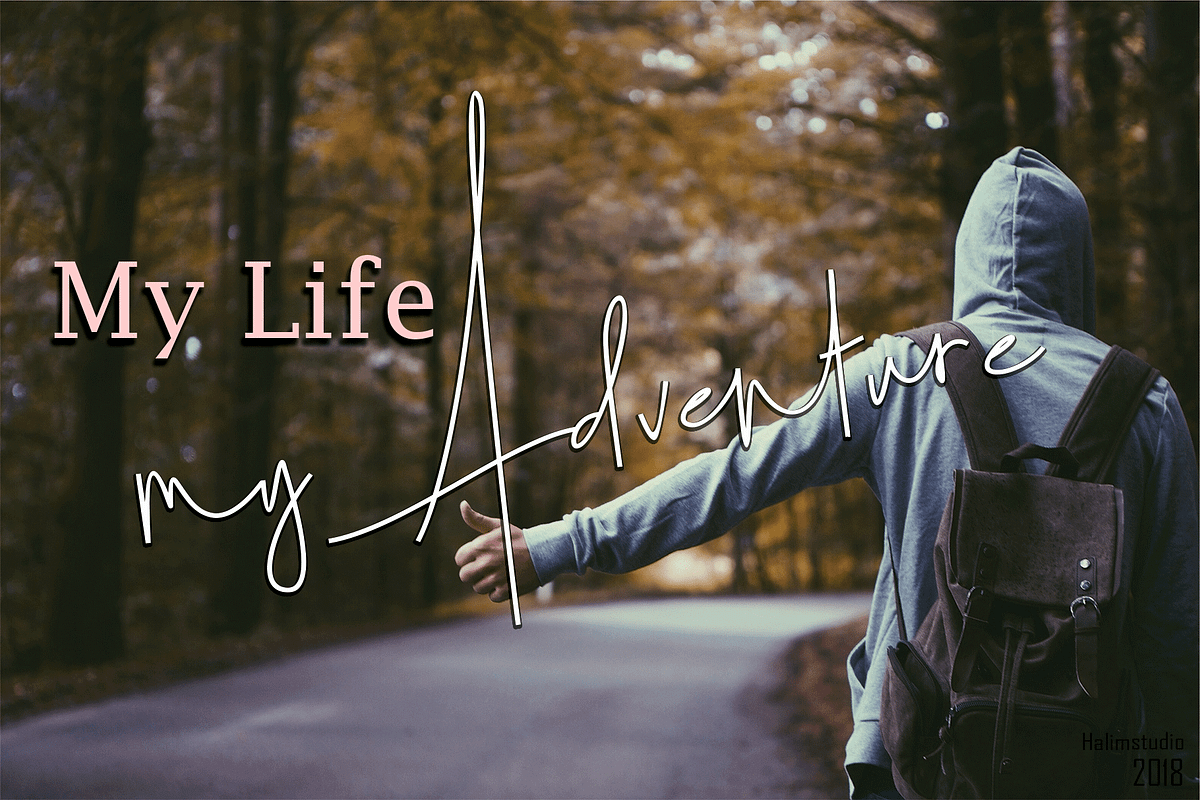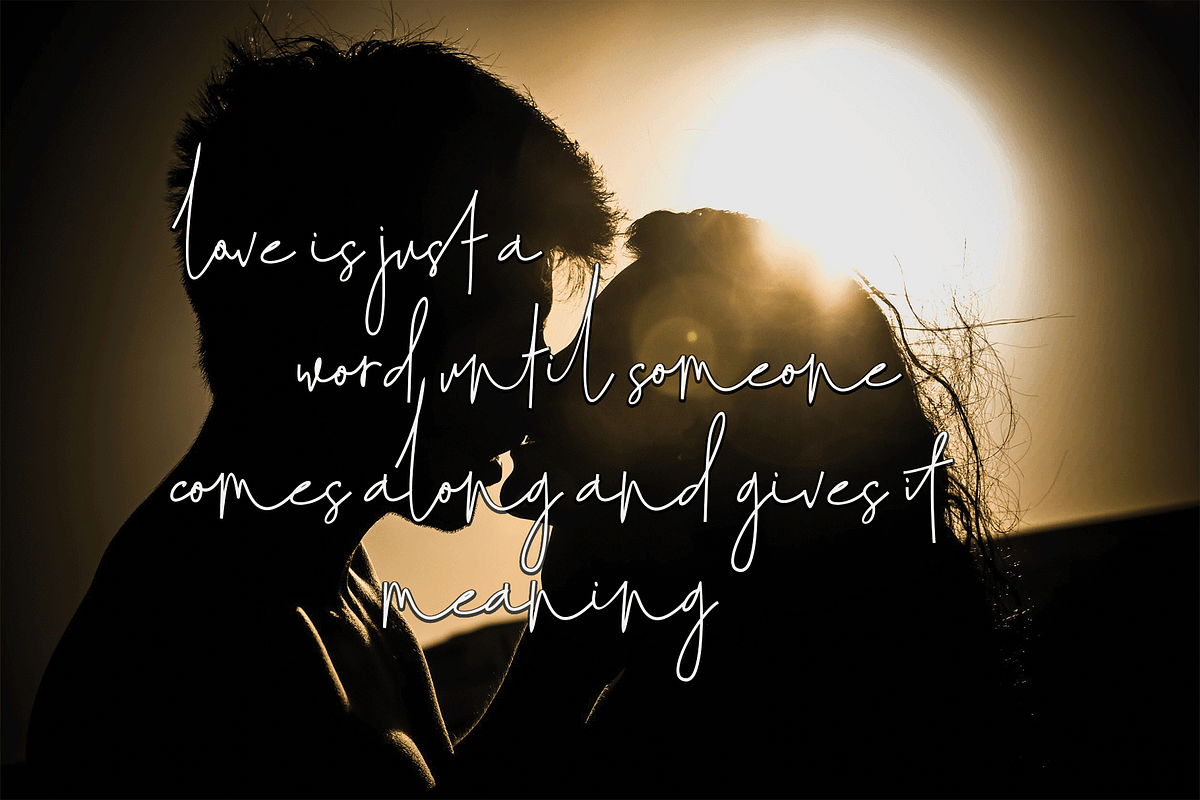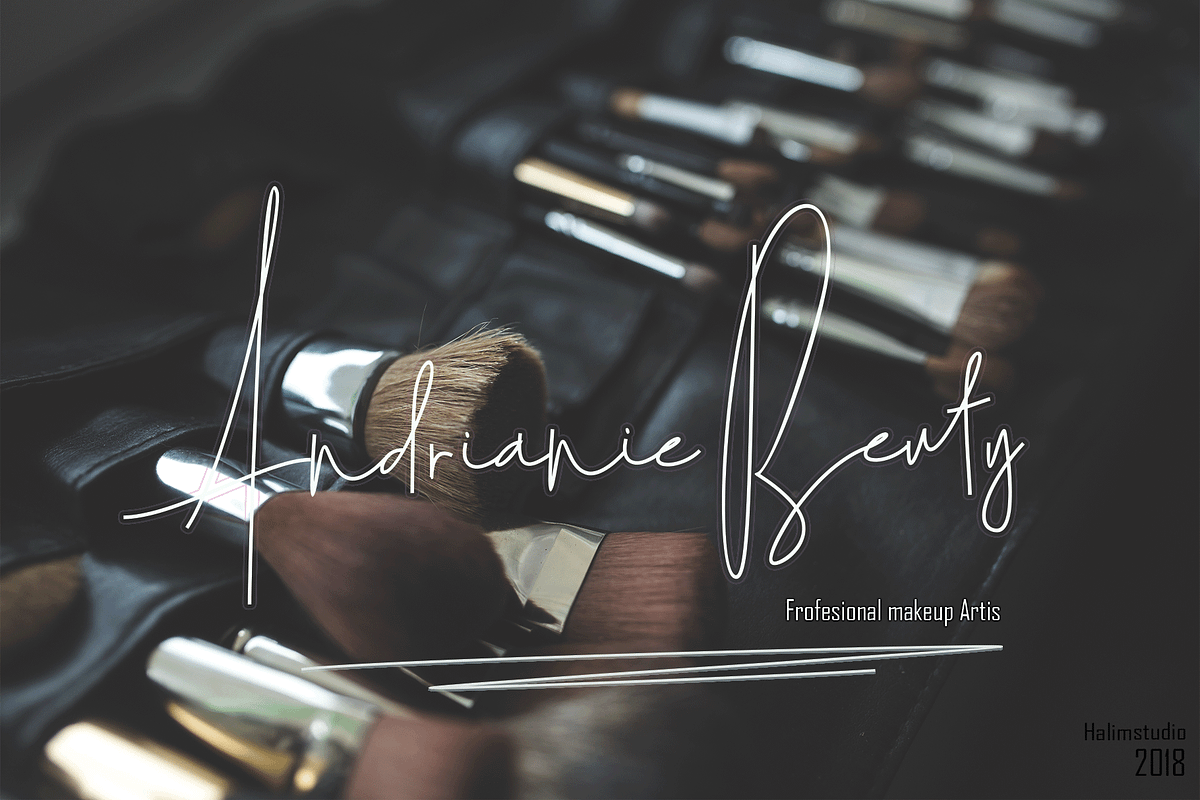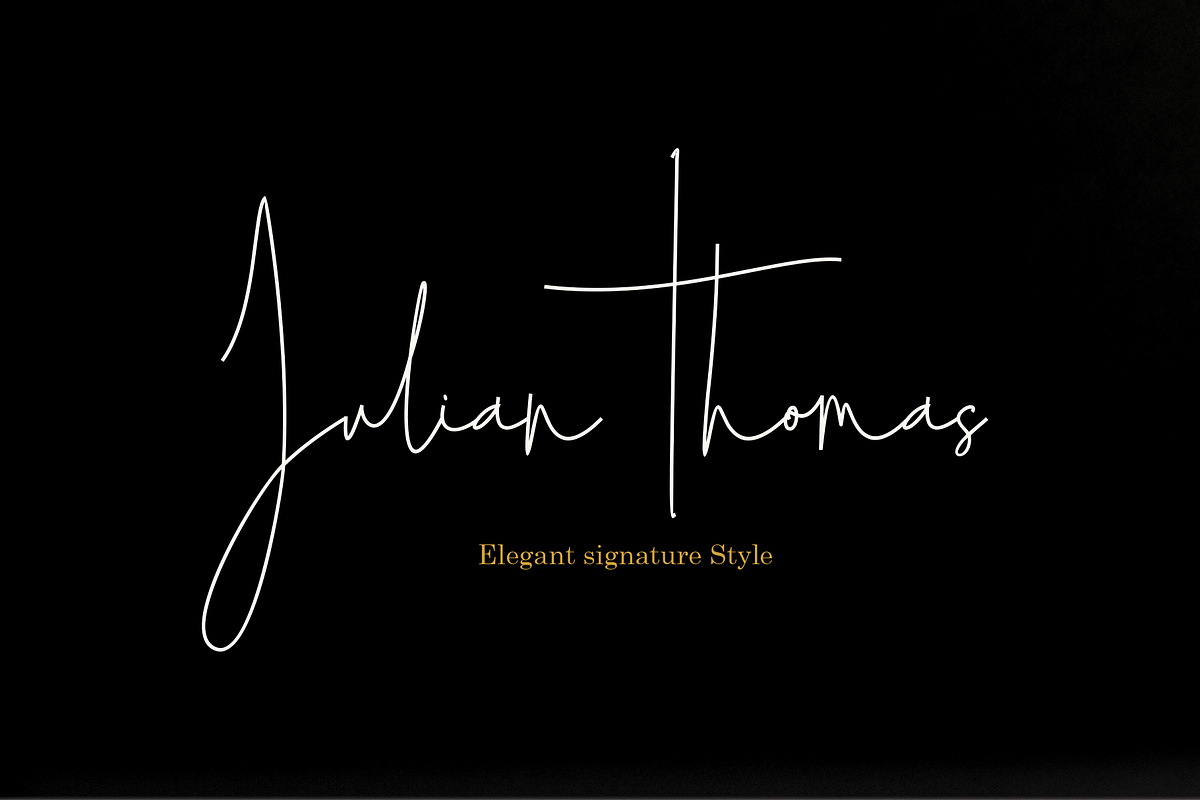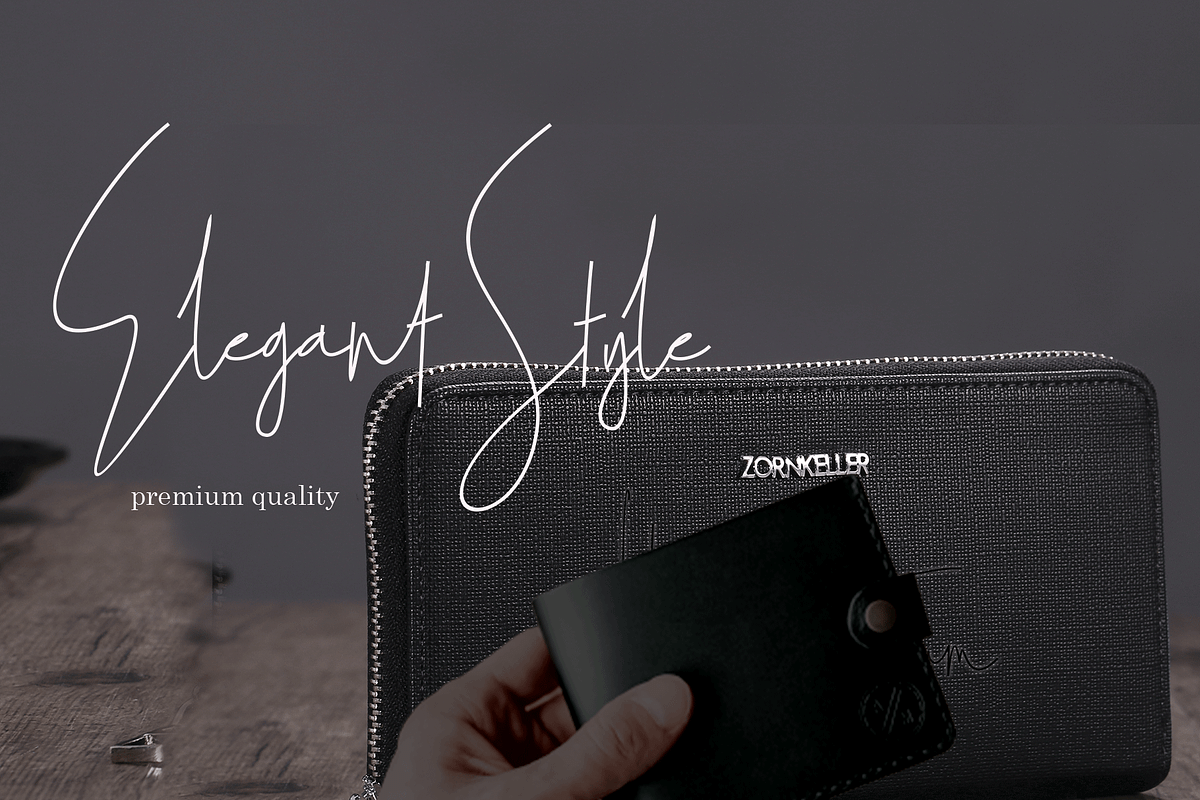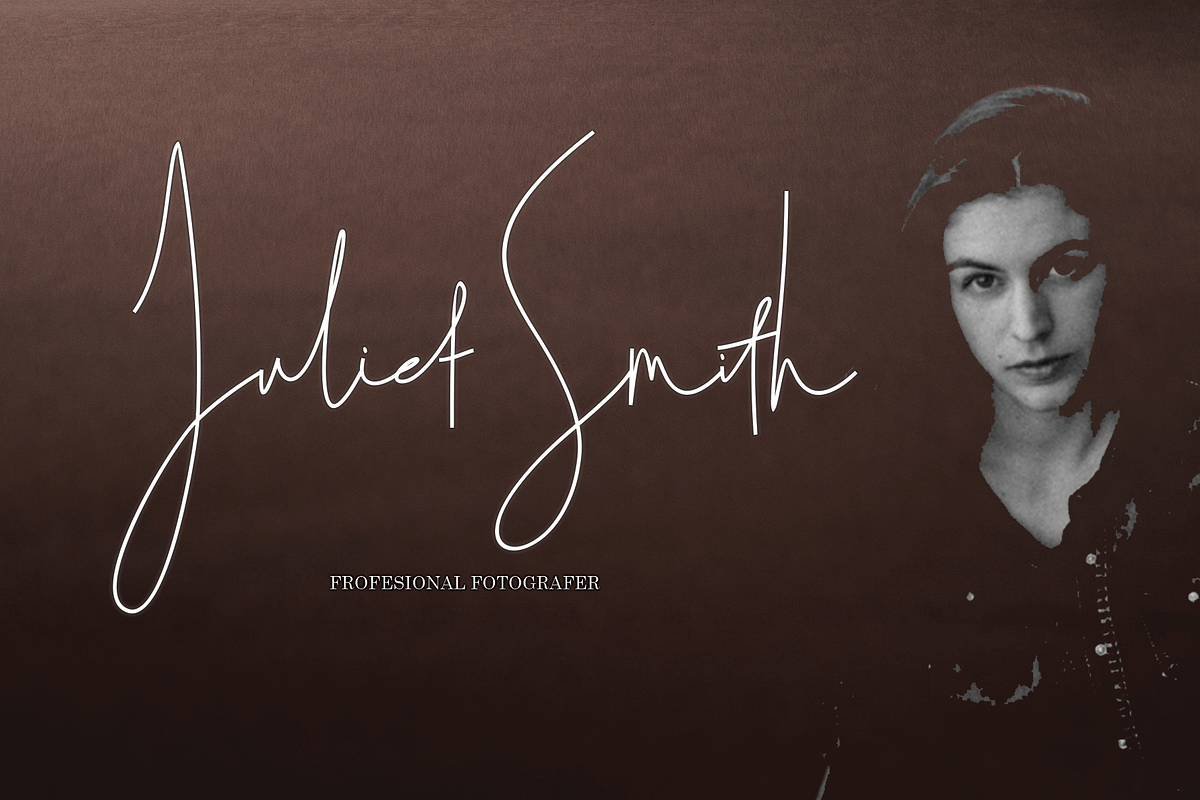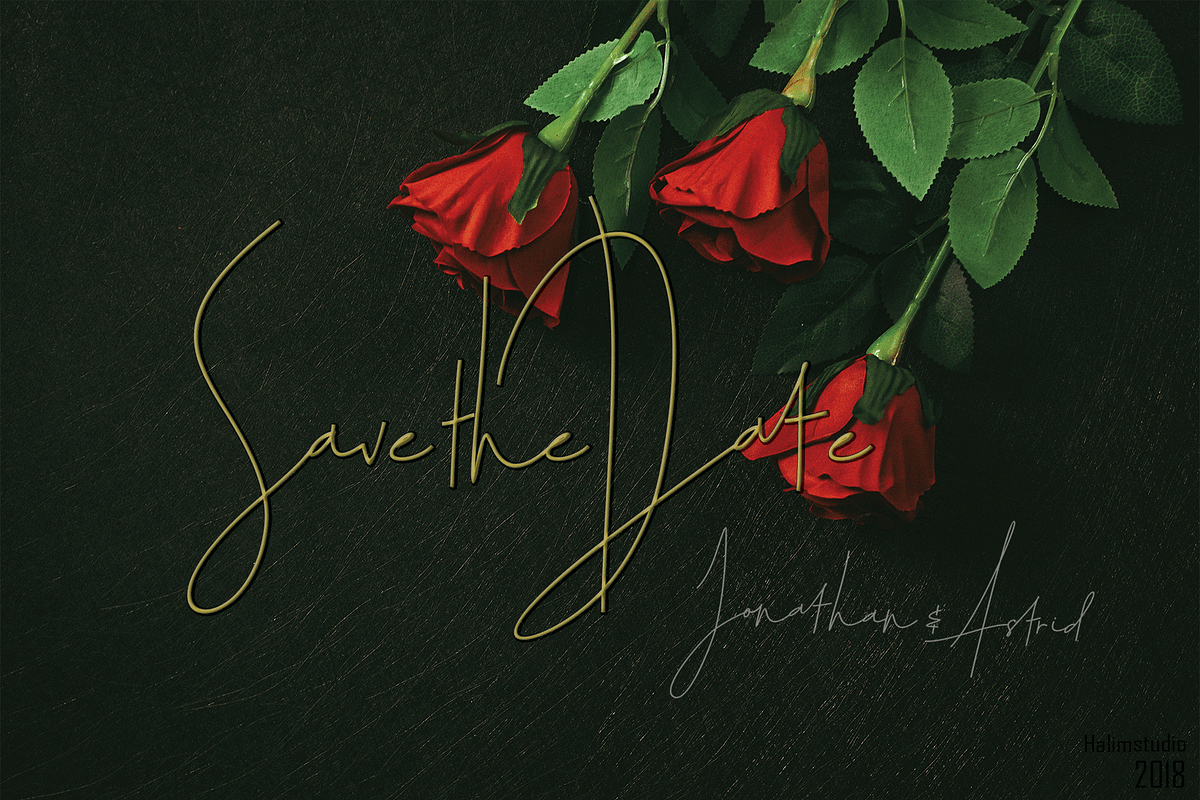
Julian Thomas
Julian Thomas Elegant Signature font.with some beautiful ligatures to make your writing more beautiful. Julian Thomas This font is for logos, product packaging, and wedding invitations and other needs.